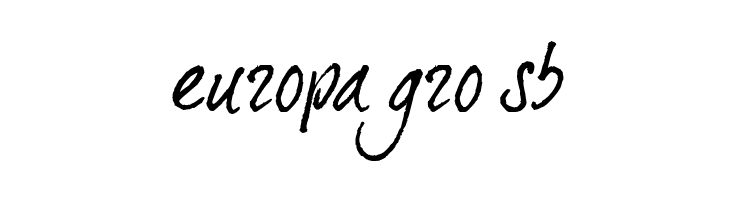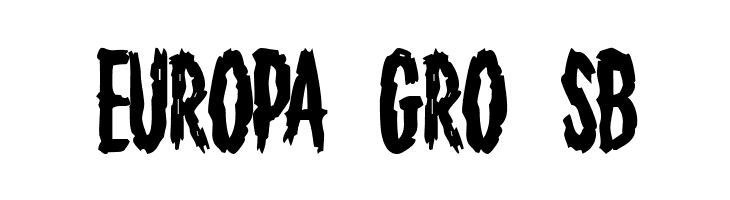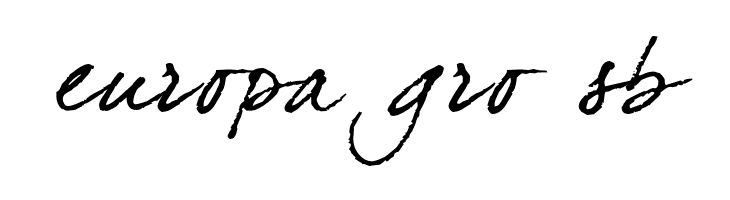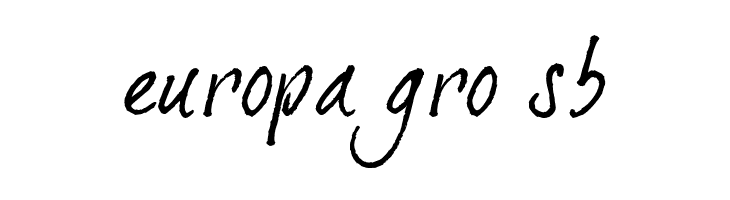
A casual, handwritten font with fluid and expressive strokes.
A handwritten, casual script font with fluid strokes.
A handwritten, casual font with dynamic strokes and a personal touch.
An elegant, flowing script font with intricate, decorative letterforms.
A casual, handwritten script font with smooth, flowing strokes.
A cursive, handwritten font with elegant, flowing strokes.
A bold, gothic-style font with intricate details and dramatic curves.
An ornate and decorative font with intricate, tool-like embellishments.